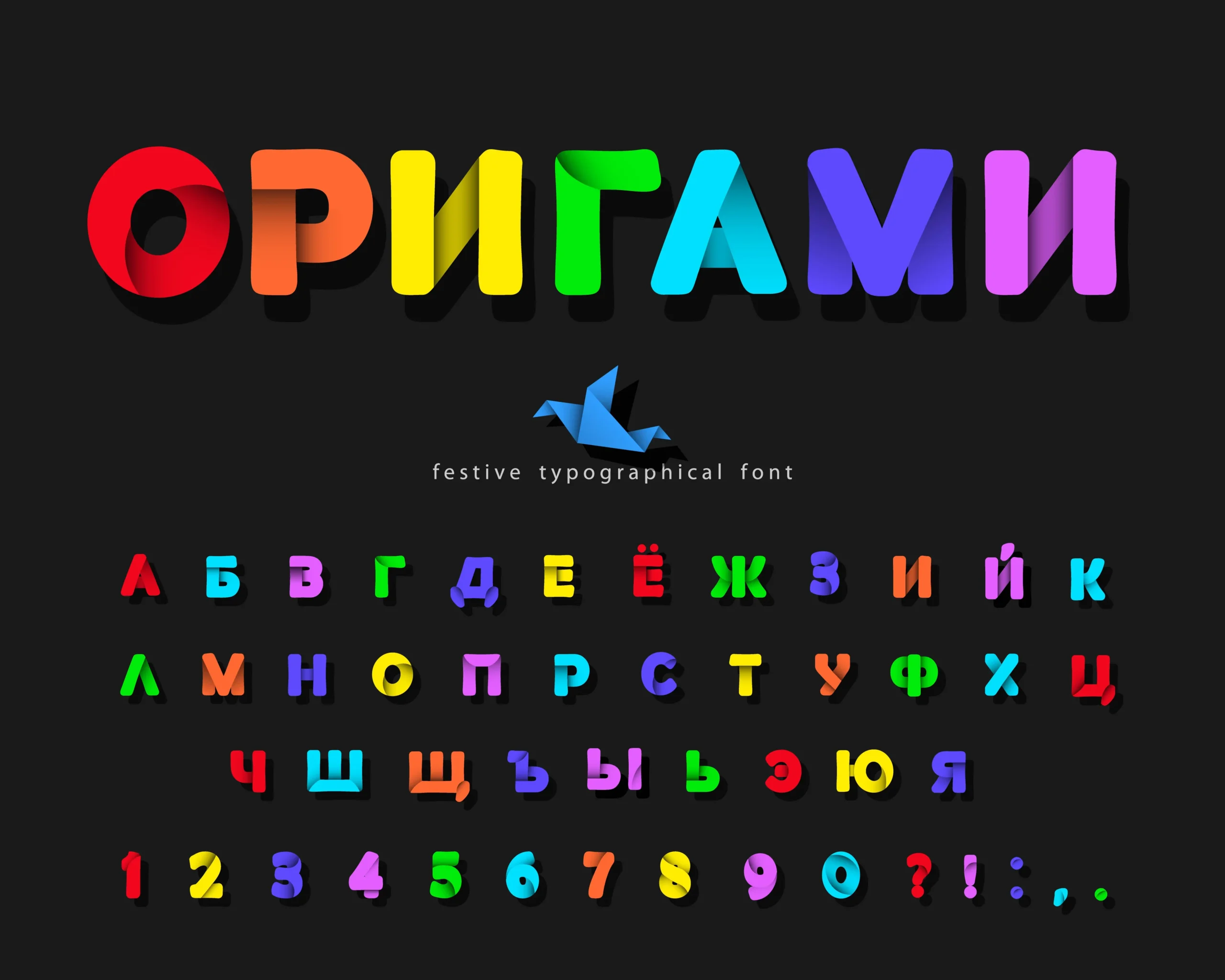
Vector Origami 3D Cyrillic Font Paper Cut Out Alphabet
Vector Origami 3D Cyrillic Font
Enhance your design projects with the Vector Origami 3D Cyrillic Font. This unique font features a paper cut-out style, perfect for creating stunning visual effects in various applications.
Features:
• Stylish 3D origami design
• Supports Cyrillic characters
• Ideal for posters, invitations, and digital media